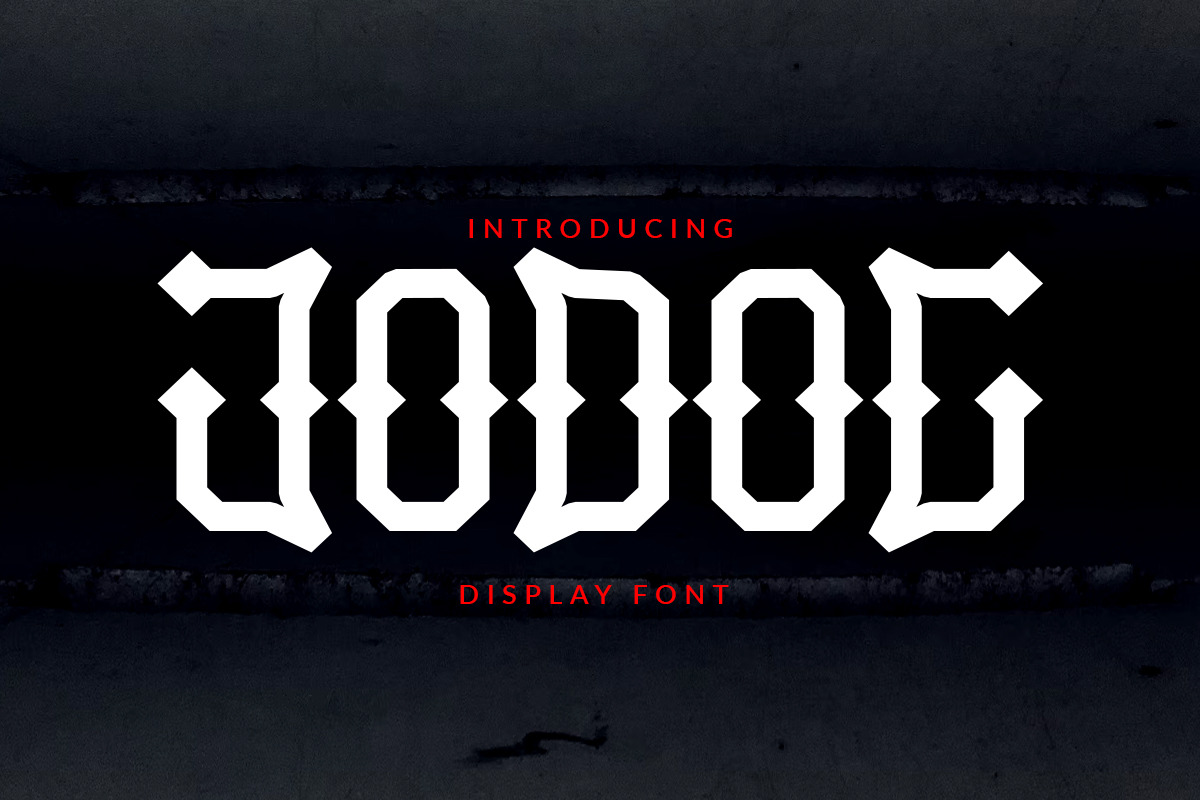
JODOJ | DISPLAY FONT
Hello everyone ...... this is a JODOJ font made with a square line and an exact curve between one and the other, this font is perfect for branding, headings, signatures, logos, blogs, wedding invitations, t-shirts, letterheads, merchandise, signage, labels, news, posters, badges, etc.